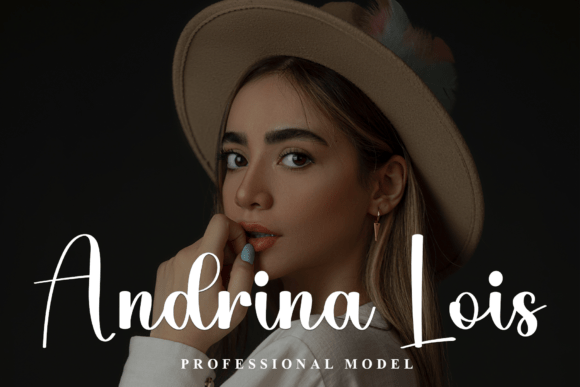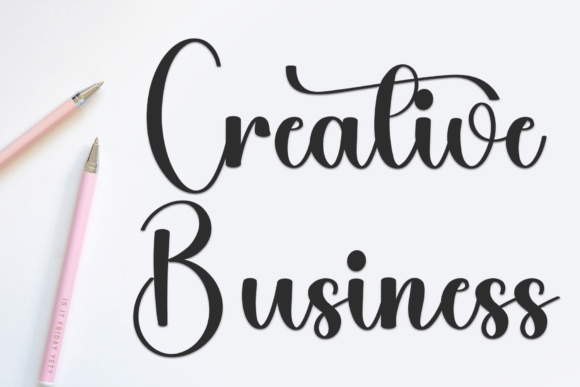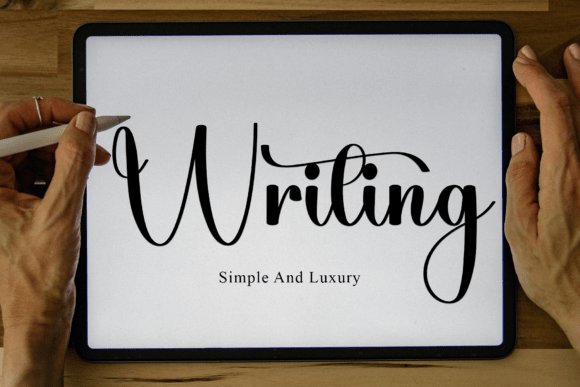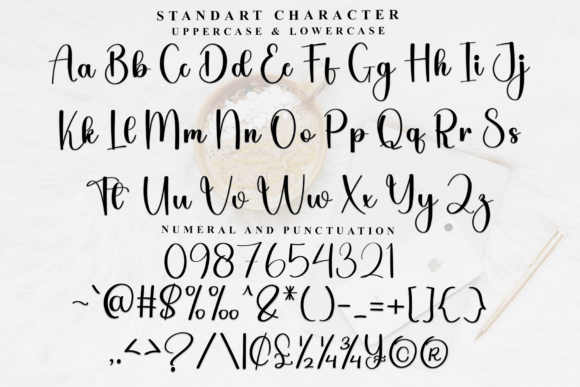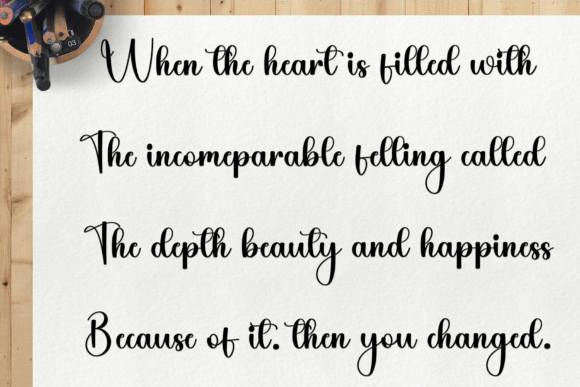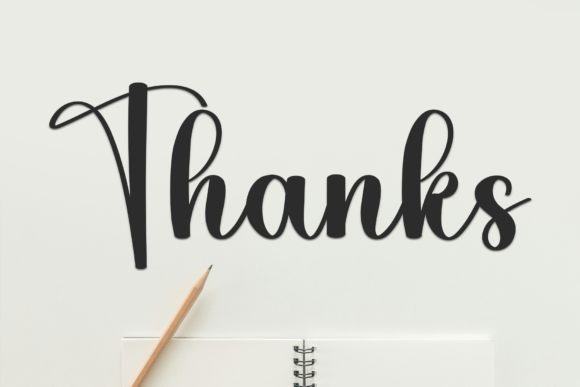
Discover the Charm of Delightful Background Font: Elevate Your Designs with a Unique Touch
In the world of typography, a font can make or break a design. It’s the perfect blend of style, elegance, and personality that can elevate a project from ordinary to extraordinary. If you’re on the hunt for a font that exudes a soft, unique touch, look no further than the Delightful Background Font. This beautiful and eye-catching font is designed to add a special character to your designs, making it a versatile and meaningful choice for future use.
The Distinctive Features of Delightful Background Font
So, what sets Delightful Background Font apart from other fonts? The answer lies in its distinctive strokes, which give it a special character that’s hard to find elsewhere. Each letter is carefully crafted with a soft, unique touch that adds a touch of elegance and sophistication to any design. Whether you’re working on a logo, a poster, or a digital project, this font is sure to make it stand out from the crowd.
A World of Creative Possibilities
Delightful Background Font is more than just a pretty face; it’s a versatile tool that can be used in a wide range of creative projects. From design and crafts to digital art and more, this font is perfect for anyone looking to add a personal touch to their work. With various characters to choose from, you can experiment with different styles and combinations to create something truly unique.
Delightful Background Font is a dream come true for designers and crafters. Its natural font style and unique character make it perfect for a wide range of projects, from branding and advertising to crafting and DIY projects. Whether you’re a professional designer or a hobbyist, this font is sure to inspire your creativity and take your projects to the next level.
Why Choose Delightful Background Font?
So, why choose Delightful Background Font over other fonts? Here are just a few reasons why this font stands out:
- Unique character: Delightful Background Font has a distinctive character that’s hard to find elsewhere.
- Versatility: This font can be used in a wide range of projects, from design and crafts to digital art and more.
- Elegance: This font exudes a soft, unique touch that adds a touch of elegance and sophistication to any design.
In conclusion, Delightful Background Font is a beautiful and eye-catching font that’s perfect for designers and crafters. Its distinctive strokes, versatility, and compatibility make it a valuable addition to any design project. Whether you’re looking to add a personal touch to your work or create something truly unique, this font is sure to inspire your creativity and take your projects to the next level. So why wait? Discover the charm of Delightful Background Font today and elevate your designs with a unique touch!